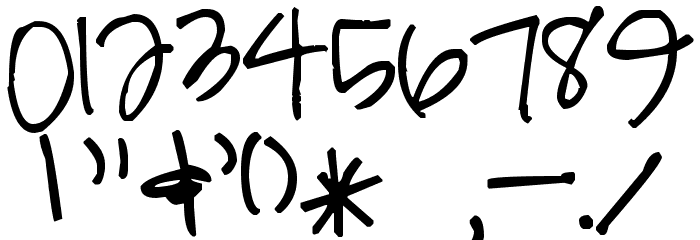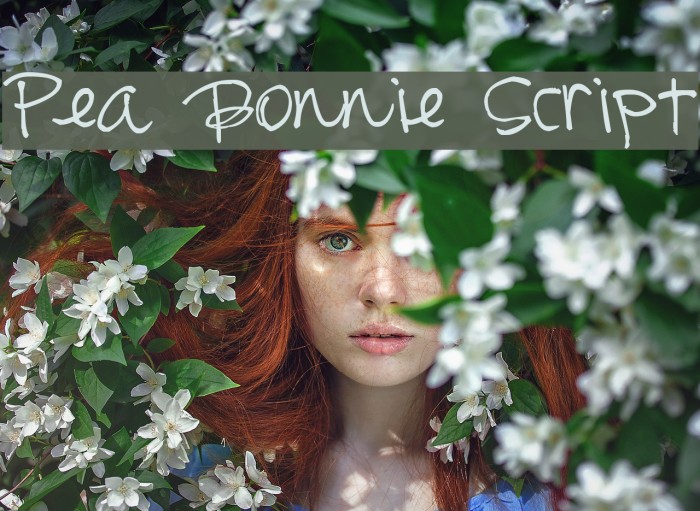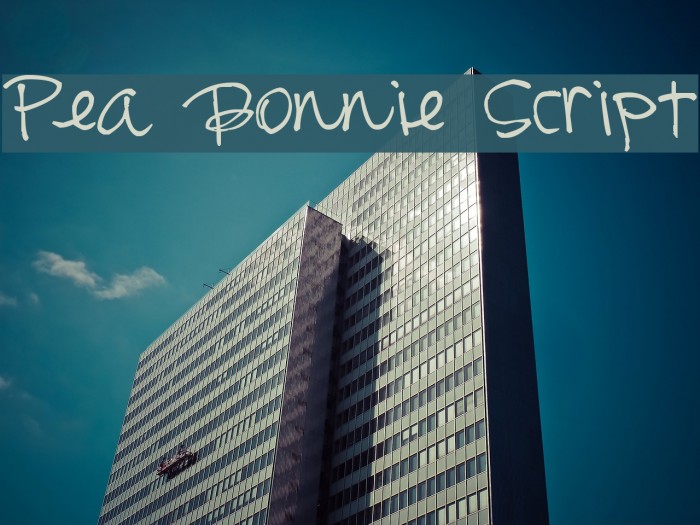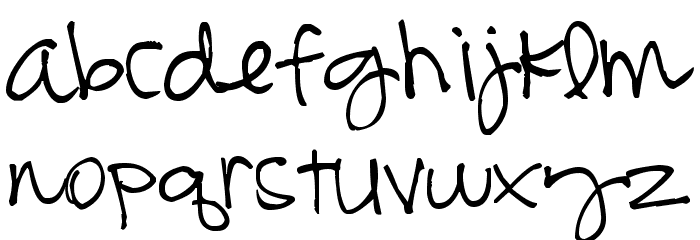
Pea Bonnie Script Font
Pea Bonnie Script Description
This font exudes a playful and casual handwritten style, characterized by its loose, flowing strokes and slightly irregular letterforms. The uppercase and lowercase letters maintain a consistent style, with a natural, organic feel that mimics the look of handwriting with a felt-tip pen. The numbers and special characters are equally expressive, adding to the font's informal and approachable aesthetic. The overall appearance is lively and dynamic, making it suitable for projects that require a personal touch.
A playful, casual handwritten font with flowing, irregular strokes from Uncategorized fonts.
- Proposed Projects: Ideal for greeting cards, personal branding, social media graphics, and informal invitations.
- Overall Style: Casual, Playful
- Use Case: Headlines, Informal text, Personal projects